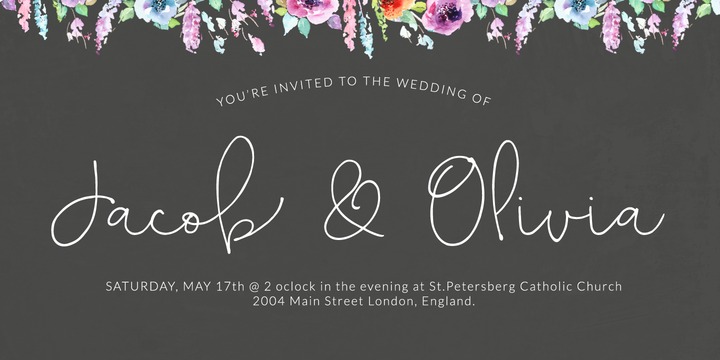
If you’re looking for a fancy, hand-drawn font for your next project – you can’t go wrong with Bellwethers! It is an excellent choice if you want to add some whimsy, verve and elegance to your letters, blogs, invitations, logo designs, business cards – whatever you can think of.
It includes 6 separate fonts all in galore of swash letterforms. To use swash fonts simply type a-z for the initial and A-Z for final swashes. Swashes are only available on lowercase letterforms; but, you can easily add your own swashes to your uppercase letters using the glyphs panel.
Bellwethers includes the following fonts:
Bellwethers Regular
Bellwethers Extras
Bellwethers Curly Swashes
Bellwethers Long Swashes
Bellwethers Short Swashes
Bellwethers Longest Swashes